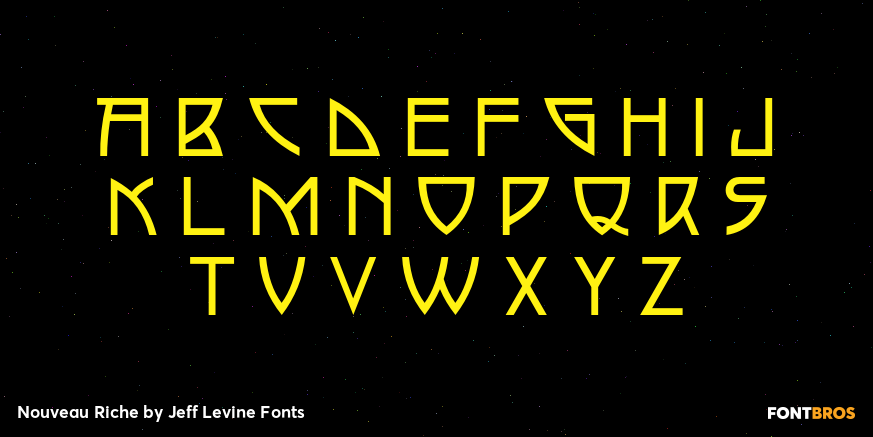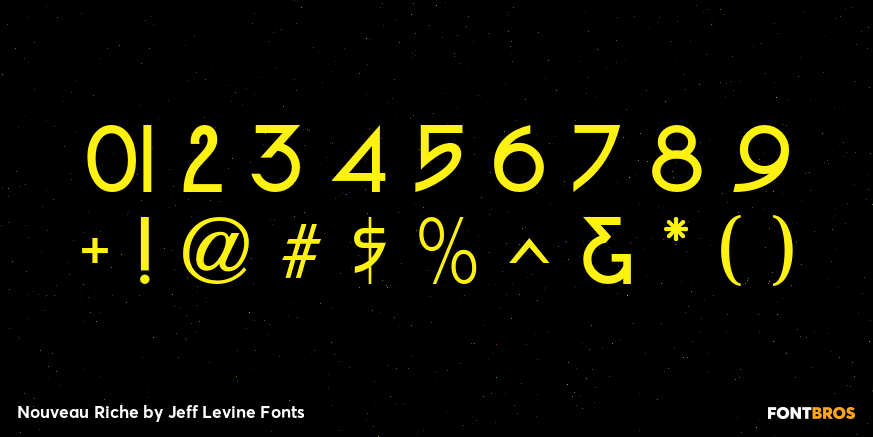
Nouveau Riche
Within the pages of an early-1900s instructional book on show card lettering was found a marvelous example of an alphabet that typifies the Art Nouveau movement of the era and served as the inspiration for Nouveau Riche JNL.
Angular, artistic and reminiscent (in some ways) of ancient Greek lettering, this design has many unusual letterforms. Check out the interpretive K and R for the best examples of this art style.